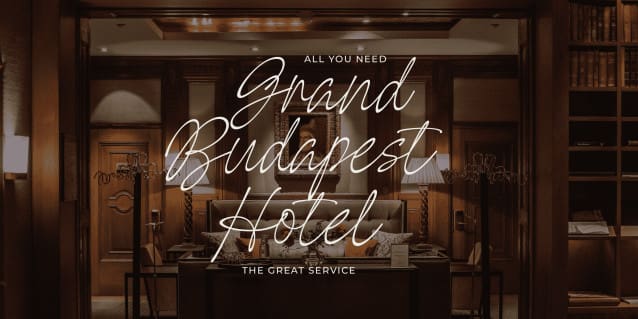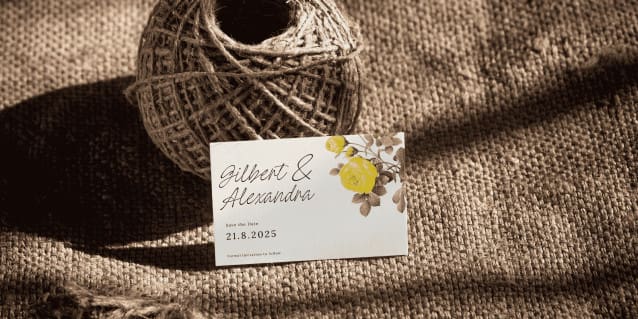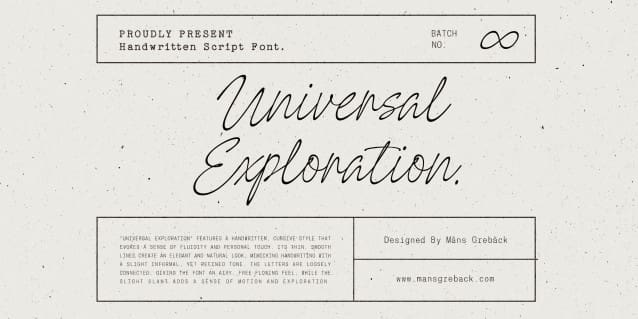
Universal Exploration Font
Universal Exploration Font is a flowing, elegant script font that captures the fluid motion of ink on paper. Its smooth curves and carefully crafted ligatures give it a seamless flow, perfect for personal communication.
Use underscore _ anywhere in a word to make an underline.
Example: Signa_ture
Use multiple underscores to make different swashes.
Example: Love___lettering